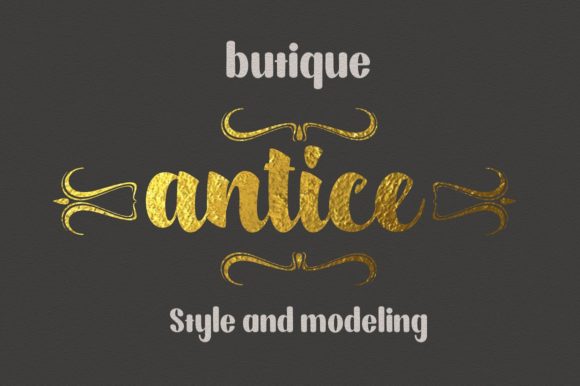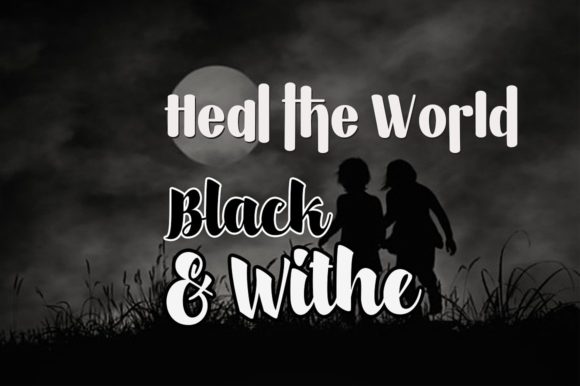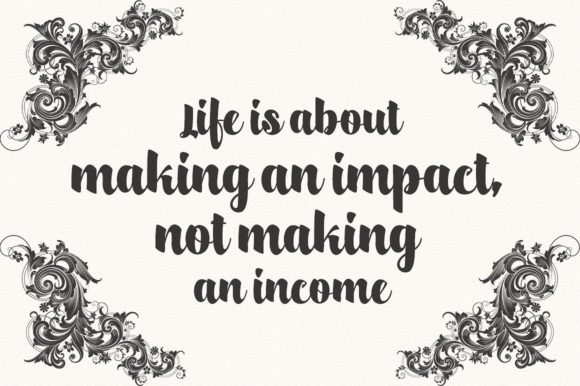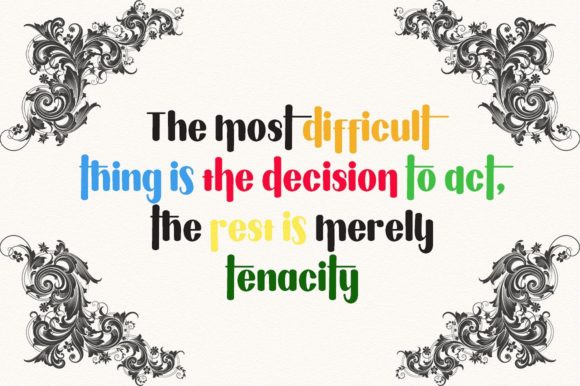
HomeScript FontsScylla Font Script Fonts Scylla Font FacebookXPinterestWhatsApp Scylla Font Poster 2 Scylla Font Poster 3 Scylla Font Poster 4 Scylla Font Poster 5 About Scylla Font The Scylla is a bold script font, It has flexible characters with an elegant, yet striking feel. DOWNLOAD NOW People also explored Kottam Font Mindfulness Font Happy Canada Day Font Swinger Casual Jacksons Duo Font Kastroo Font Mataram Font Serenity Font Valentina Font 359 0 TagsScylla Font Previous articleAntero FontNext articleShafeer Duo Font LEAVE A REPLY Cancel reply Comment: Please enter your comment! Name:* Please enter your name here Email:* You have entered an incorrect email address! Please enter your email address here Website: Save my name, email, and website in this browser for the next time I comment. Personal Use Free December Christmas Personal Use Free Read more about this font Glosery Personal Use Free Read more about this font Stentiga Personal Use Free Read more about this font Manbow Personal Use Free Read more about this font BLOG Exploring Font Trends Shaping Communication in the Digital Era Fonts, like all design elements, are subject to trends. They play a crucial role in communicating a brand's personality,... Fonts That Capture the Spirit of New York City Using Fonts in Digital Marketing: Tips to Strengthen Your Brand Identity Top 7 Google Fonts Alternatives for Faster and Privacy-Friendly Web Design (2025)